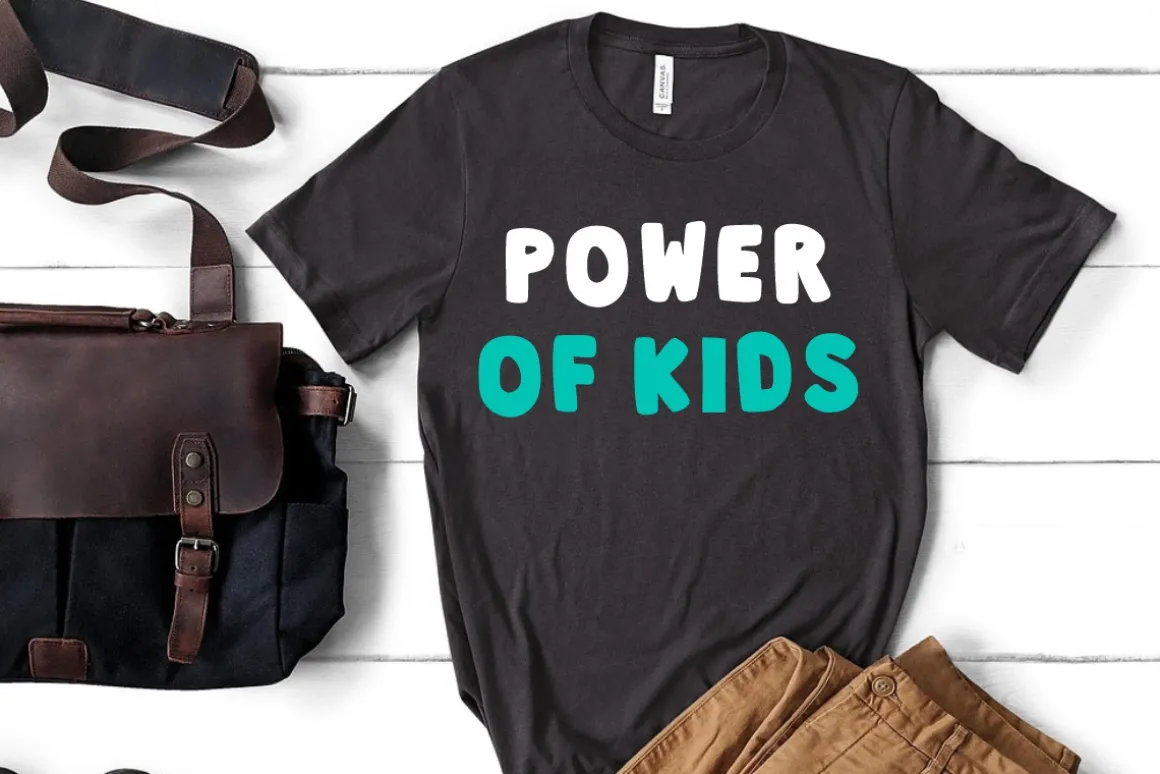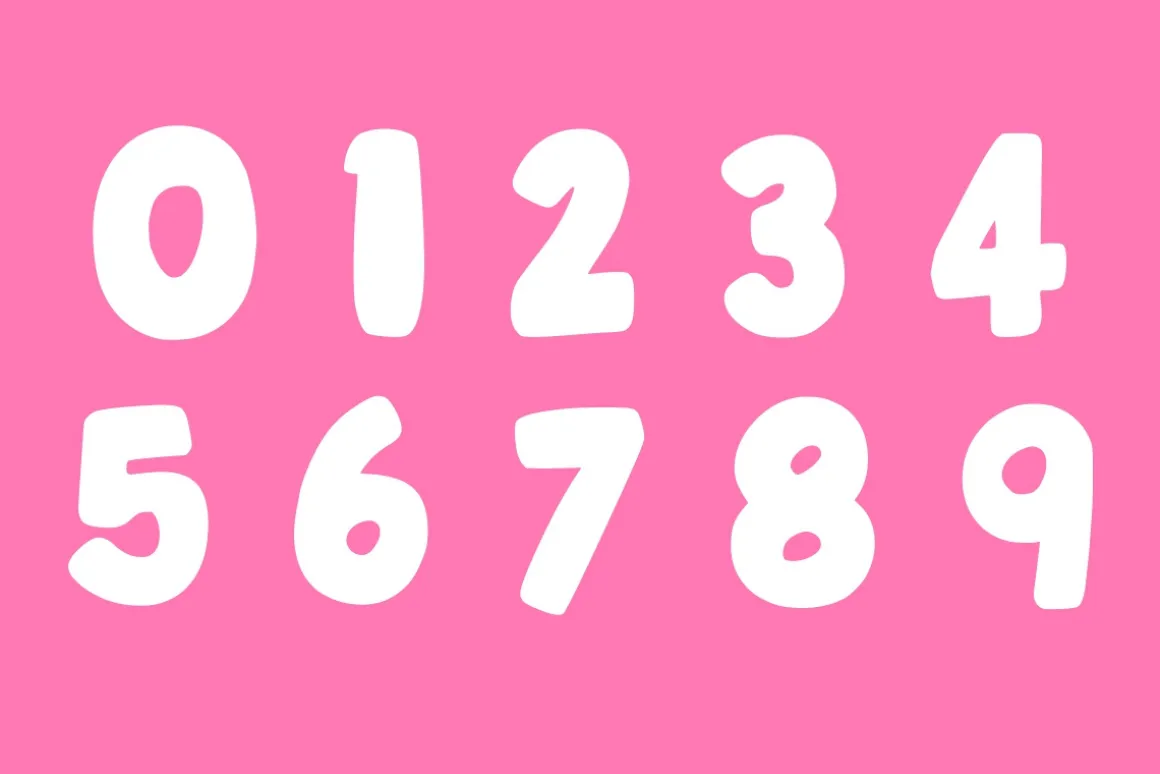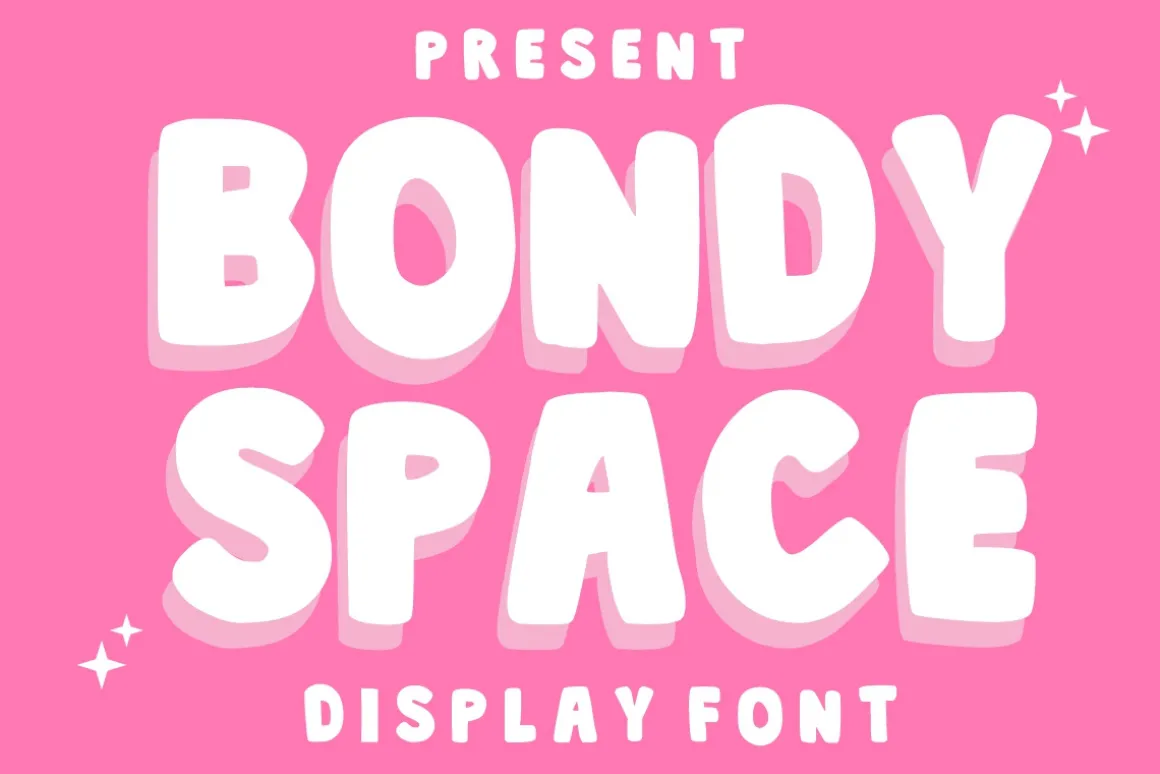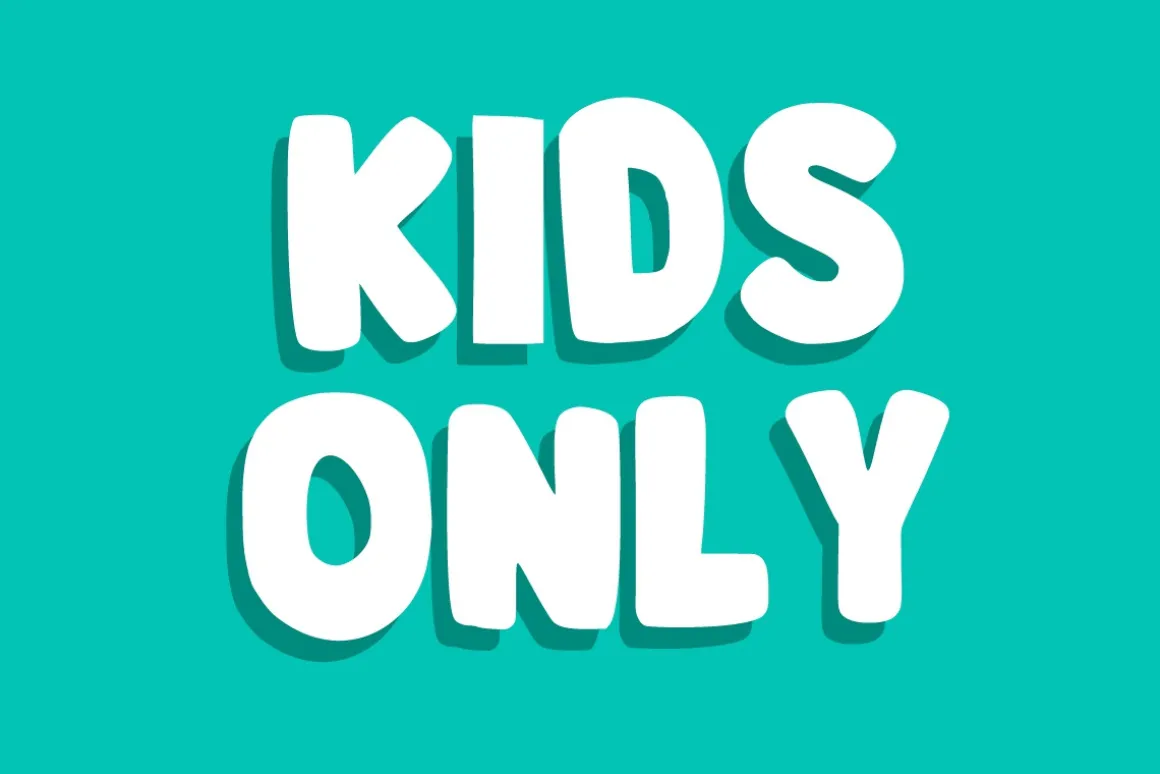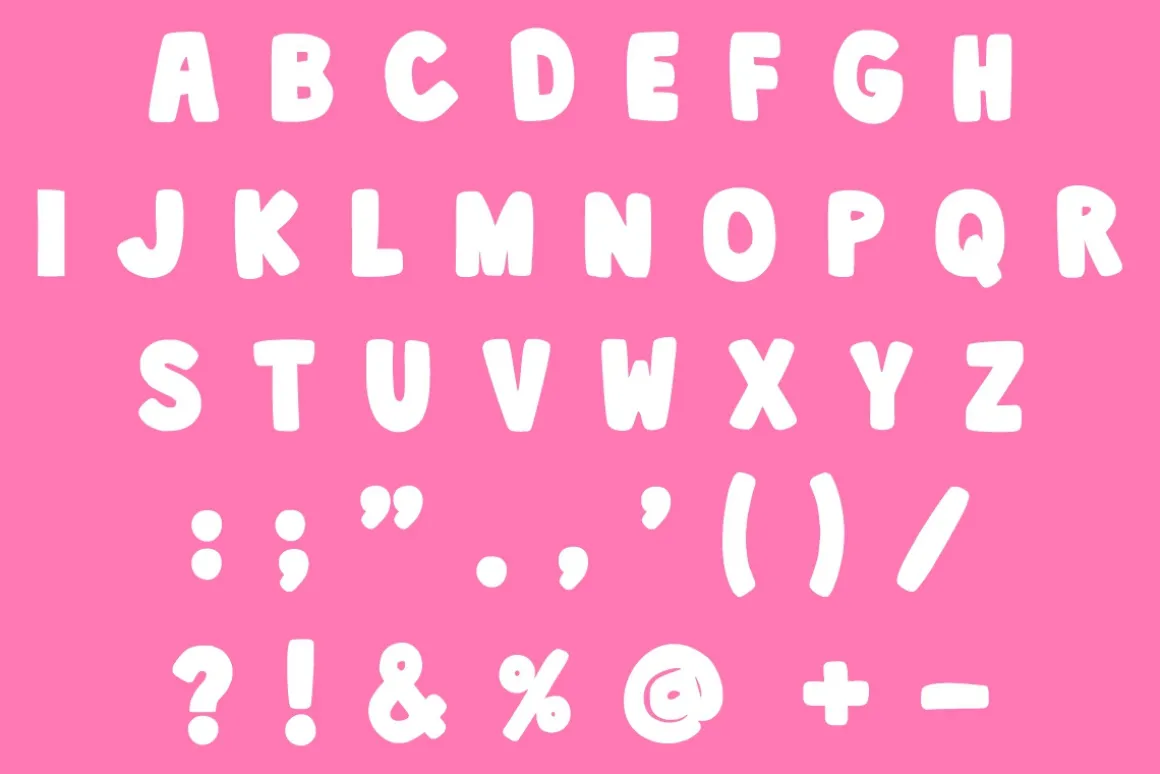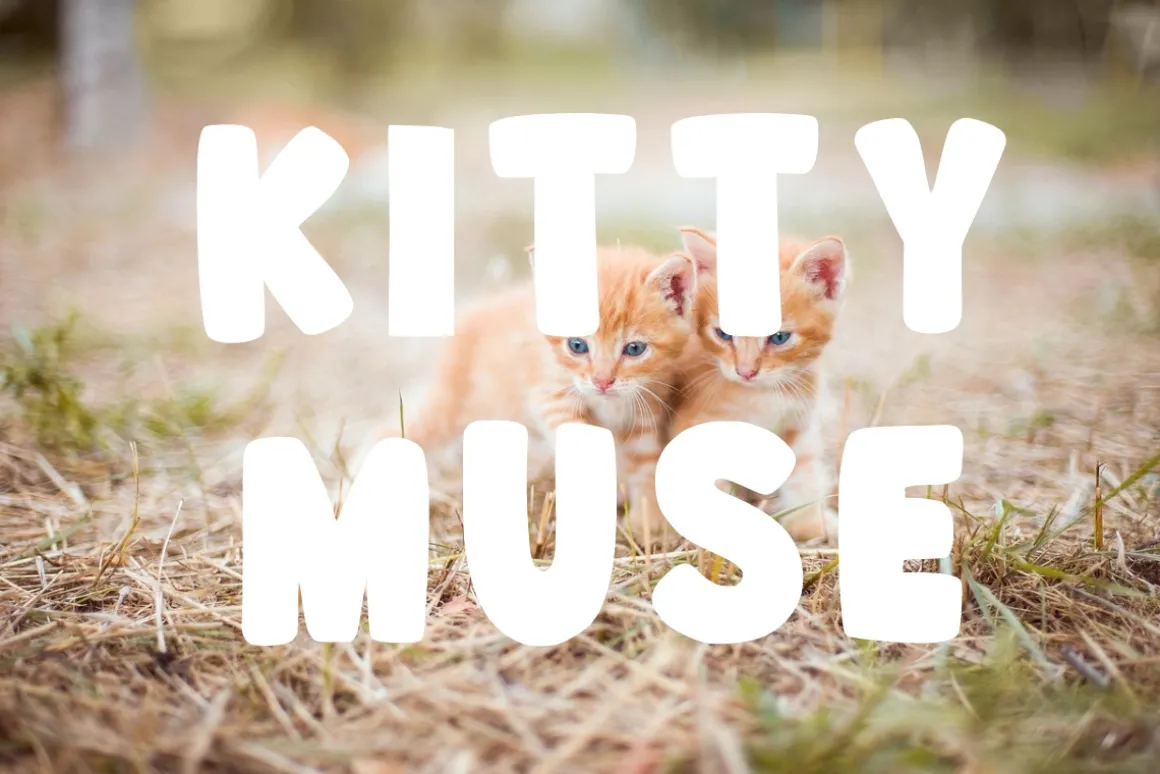
BONDY SPACE is a bubbly, bold display font bursting with cuteness and cartoonish charm.
Its chunky letterforms and playful curves make it perfect for kids’ books, YouTube thumbnails, toy packaging, and playful branding.
The font is delivering a fun, friendly tone in every glyph. Ideal for headlines and logos that need maximum personality, BONDY SPACE brings joy, imagination, and an outer-space level of energy to any project.